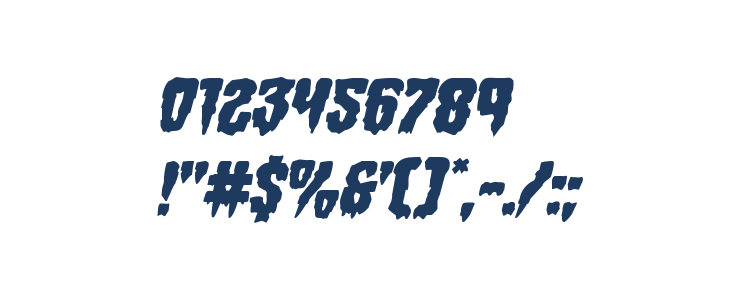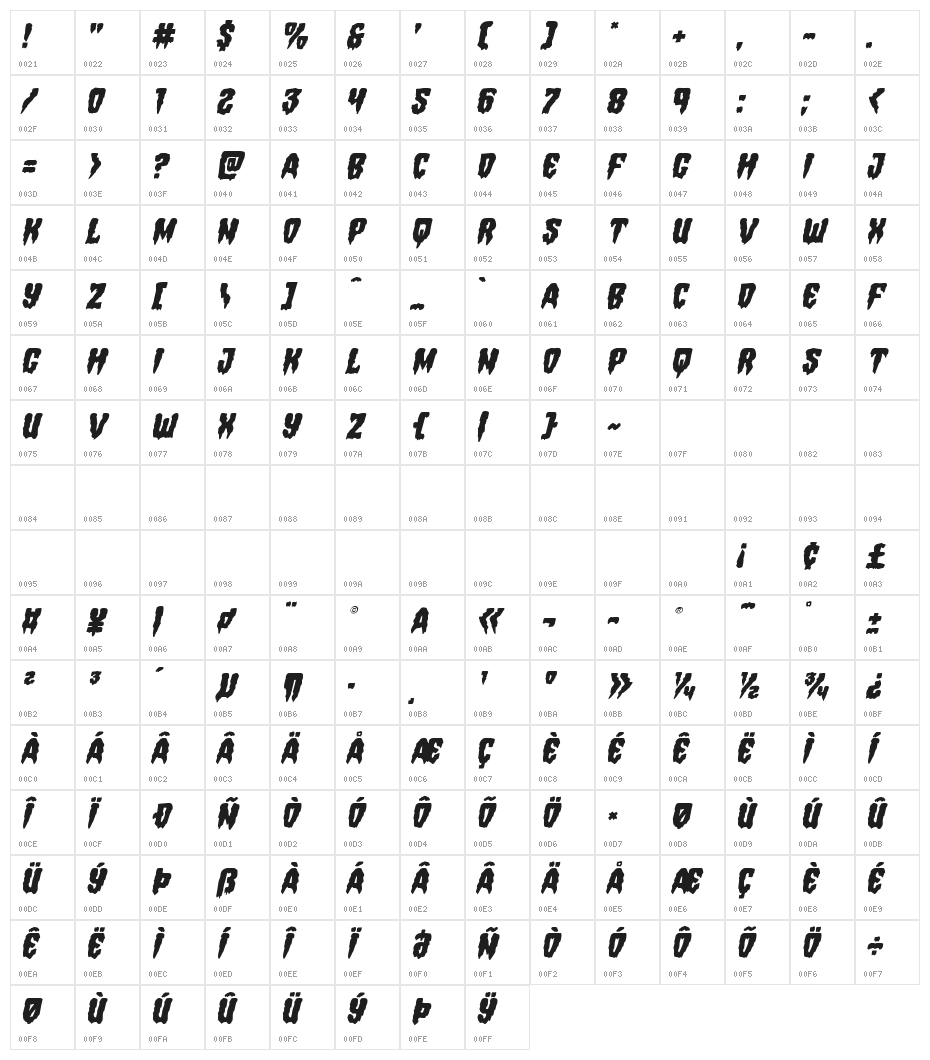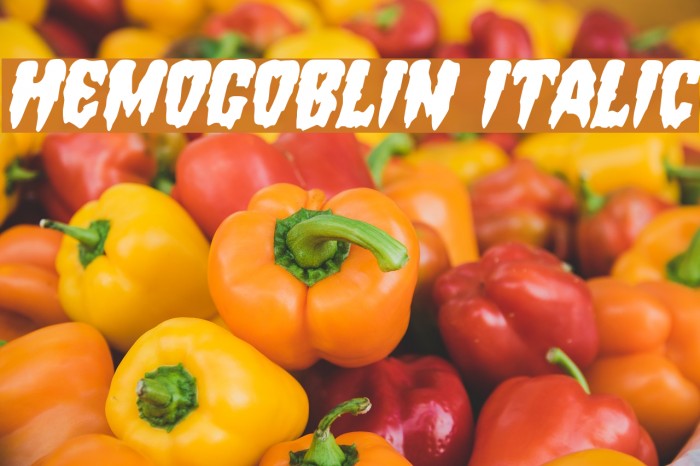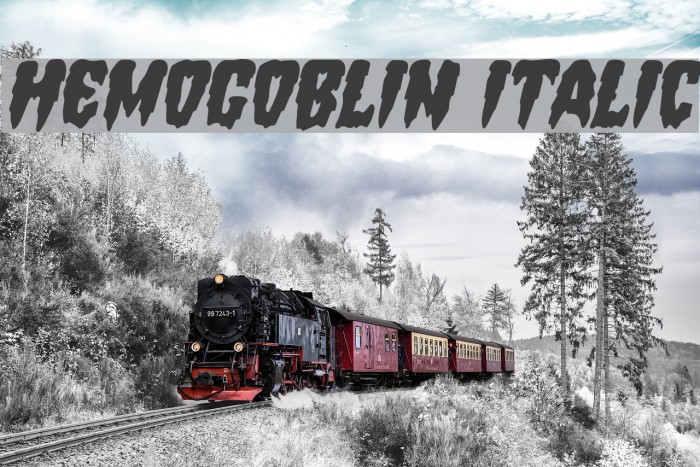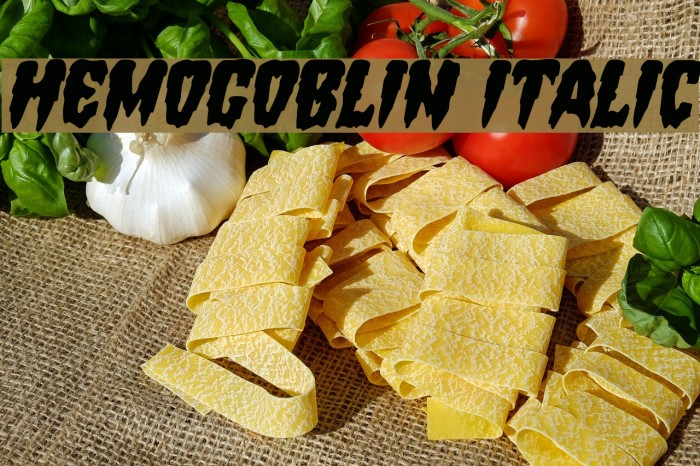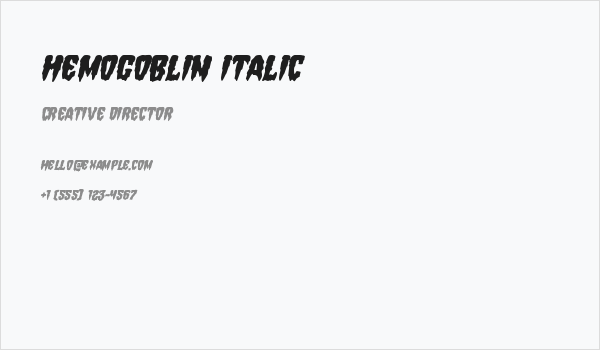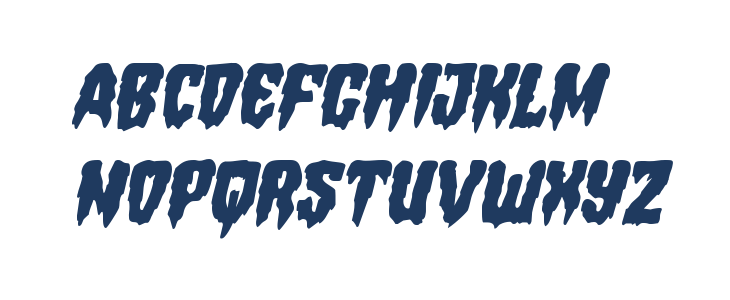
Hemogoblin Italic Font
Hemogoblin Italic Description
This font features a bold and jagged design, reminiscent of horror or Halloween themes. The characters have a rough, uneven edge that gives them a dynamic and energetic appearance. The uppercase and lowercase letters maintain a consistent style, with exaggerated angles and sharp points. The numbers and special characters follow the same aesthetic, ensuring a cohesive look across all glyphs. This font's unique style makes it stand out, perfect for creating eye-catching designs that require a touch of the macabre or fantastical.